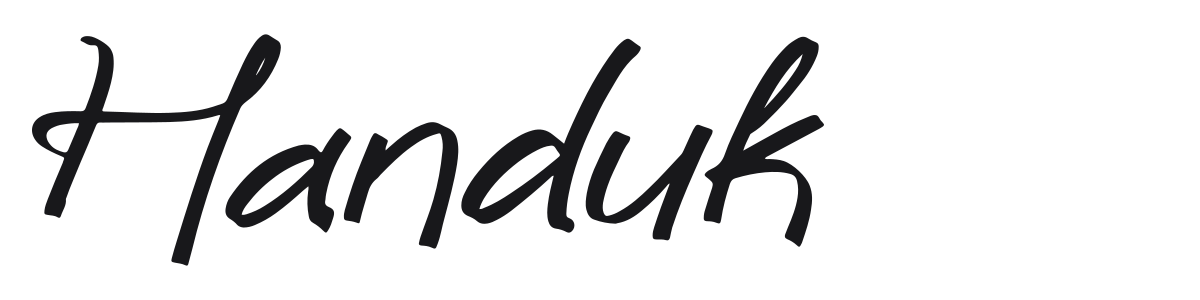
Handuk
Handuk is a casual brush script with an authentic hand-lettered feel, like something dashed off quickly with a soft brush or felt-tip pen. The slightly rough stroke edges and natural variation in letter forms keep it from feeling polished or stiff. It carries the relaxed energy that works well on product labels, social content, and anywhere a human touch matters.